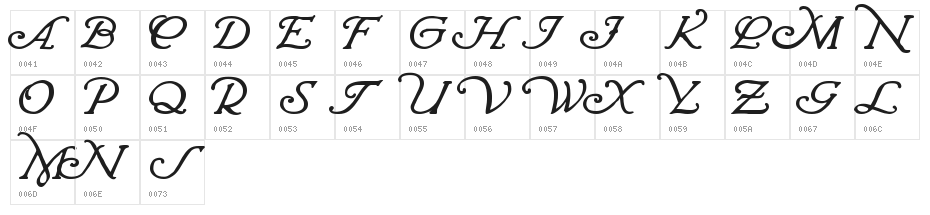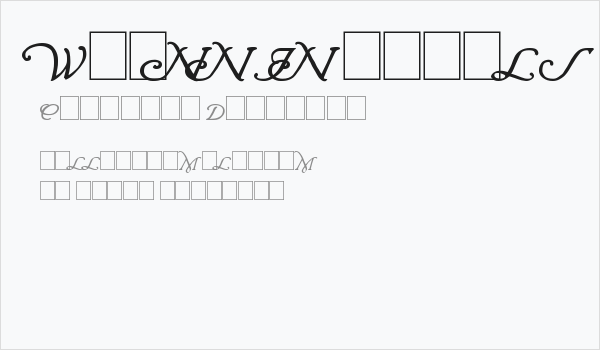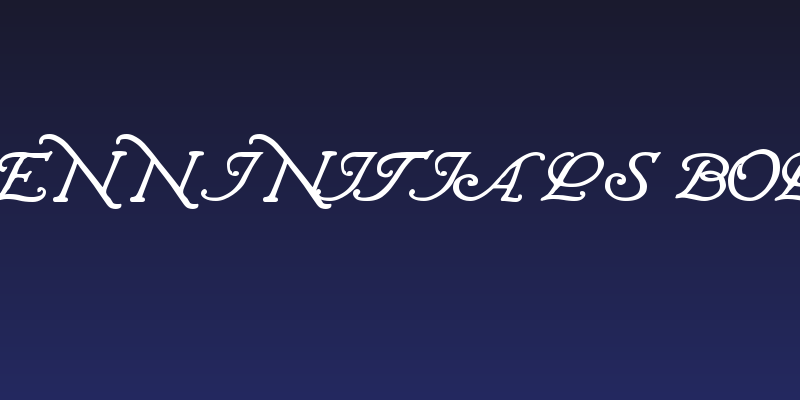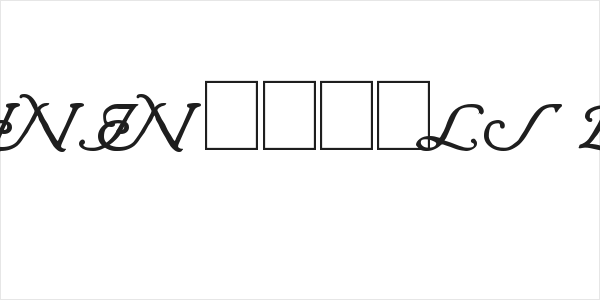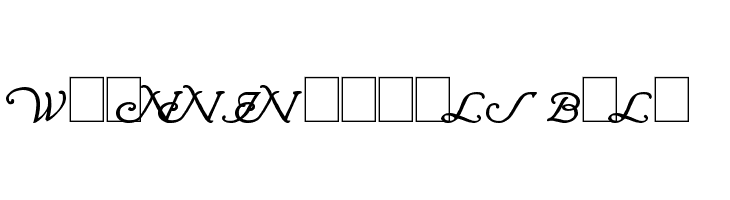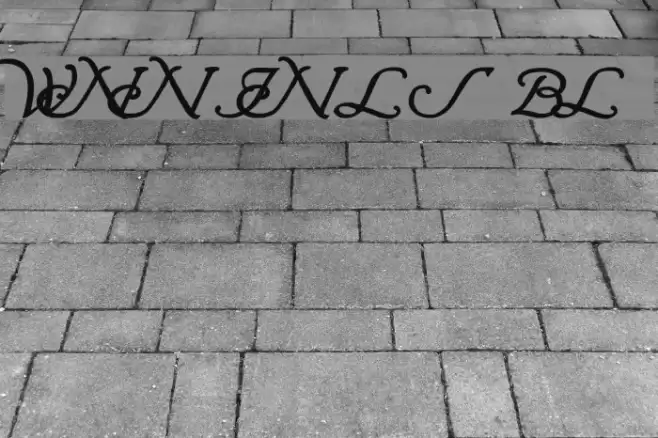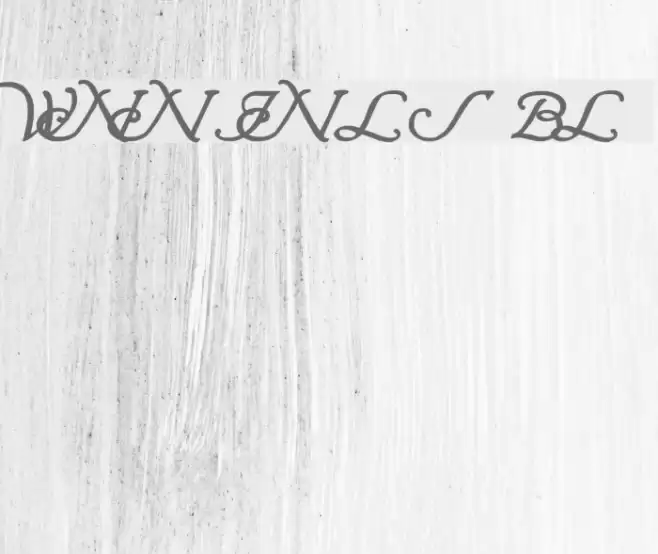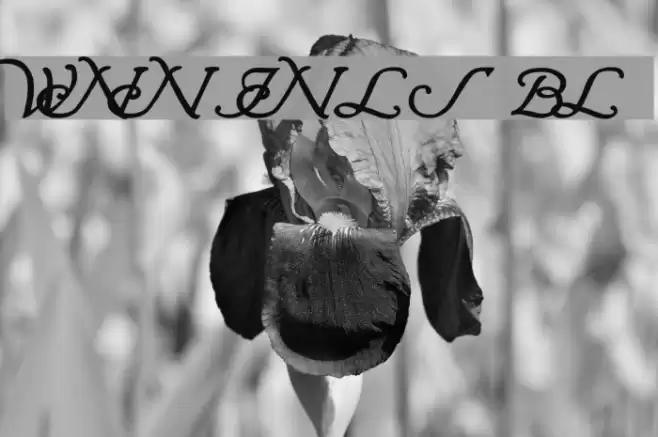
Wrenn Initials Bold Font
Wrenn Initials Bold Description
This font showcases an elegant and sophisticated script style, characterized by its flowing, cursive letterforms. The uppercase letters are ornate and feature intricate swashes, making them ideal for decorative purposes. The lowercase letters maintain a consistent style, complementing the uppercase with their smooth curves and loops. The overall appearance is both classic and refined, suitable for formal invitations, branding, or any project that requires a touch of elegance. The font's bold weight adds to its presence, ensuring it stands out in any design.
| Overall Style | Classic |
| Use Case | Headlines, Logos, Invitations |
| Proposed Projects | Ideal for wedding invitations, luxury branding, elegant signage, and decorative headlines. |